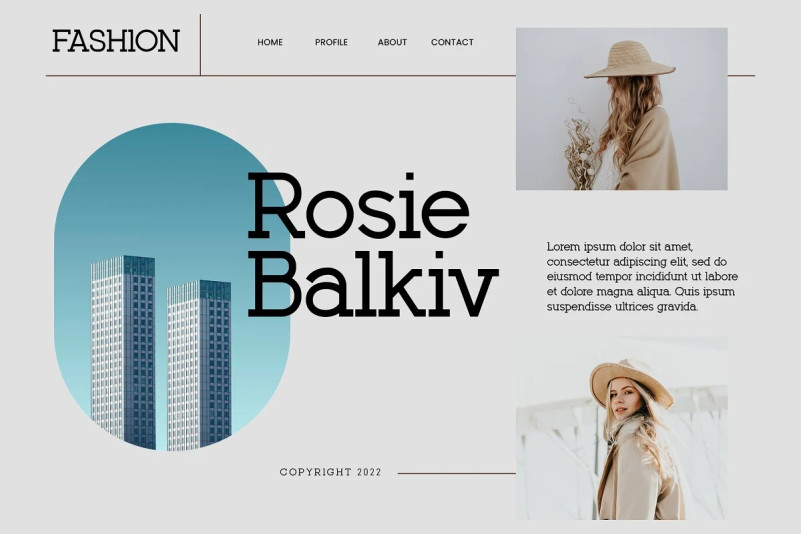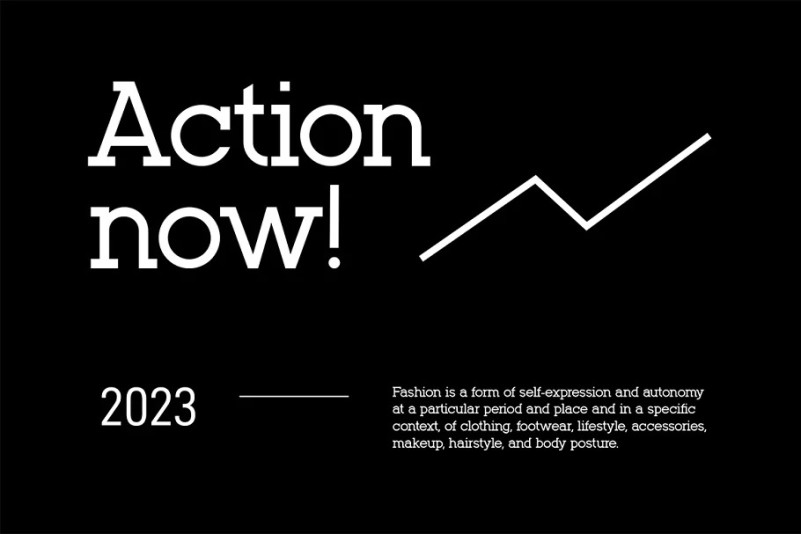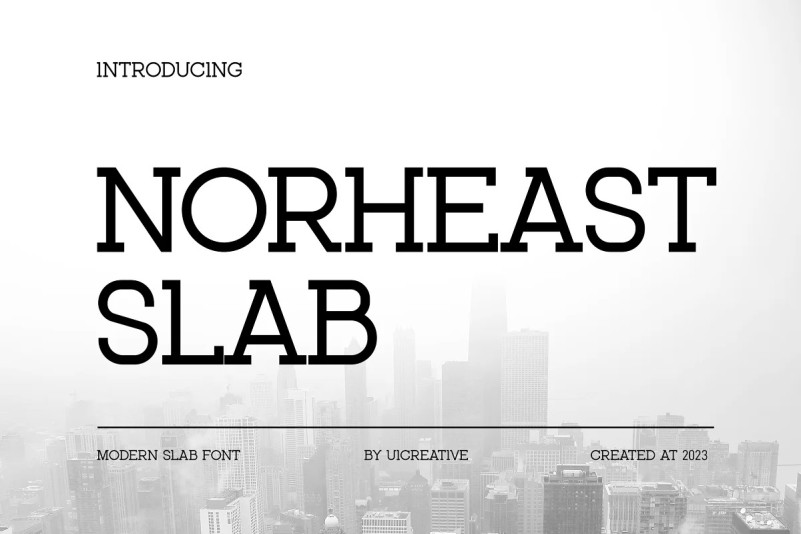
Norheast Font
Norheast Font – Slab Modern Font. Modern Serif font that feels beautiful classy, elegant, and modern. This font is ideally suited for a wide variety of projects, such as signature, stationery, logo, wedding, typography quotes, magazine or book covers, website headers, clothing, branding, packaging design, and more. Also, fashion-related branding or editorial design displays both masculine and feminine qualities.